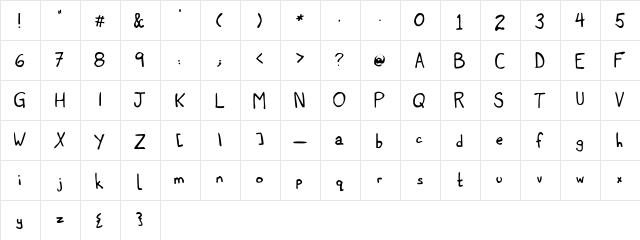
Titwillow Regular
Design Context for Titwillow Typeface
Titwillow offers clean, dependable letterforms without strong stylistic allegiance, making it a practical choice for designers who need flexibility.